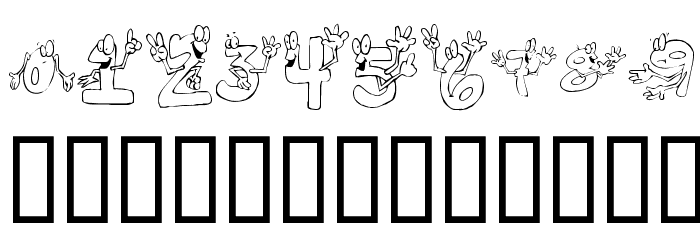
KR I'm This Many! Font
KR I'm This Many! Description
This playful and whimsical font features cartoonish numbers with exaggerated, animated expressions and gestures. Each number is designed with a unique personality, incorporating elements like eyes, hands, and feet, giving them a lively and fun appearance. The characters are bold and rounded, making them highly legible while maintaining a sense of humor and creativity. This font is perfect for projects aimed at children or for any design that requires a touch of playfulness and charm.
| Overall Style | Playful, Cartoonish |
| Use Case | Logos, Posters, Children's materials |
| Proposed Projects | Ideal for children's books, educational materials, birthday invitations, and playful branding. |